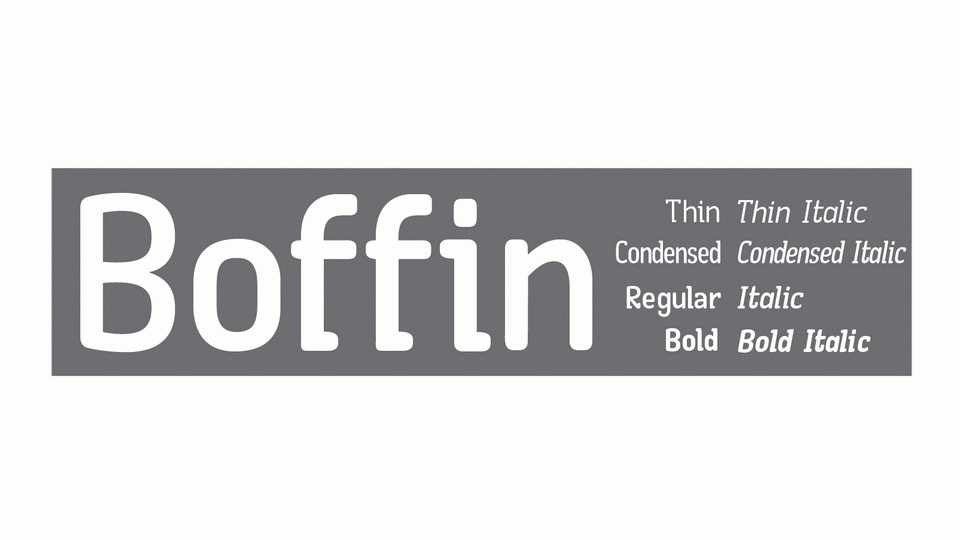
Download Boffin typeface, a simple little font family in eight styles for all things technical. A faux monospaced, semi-serif with rounded corners that you will never forget.
Designer: Boris Marinov